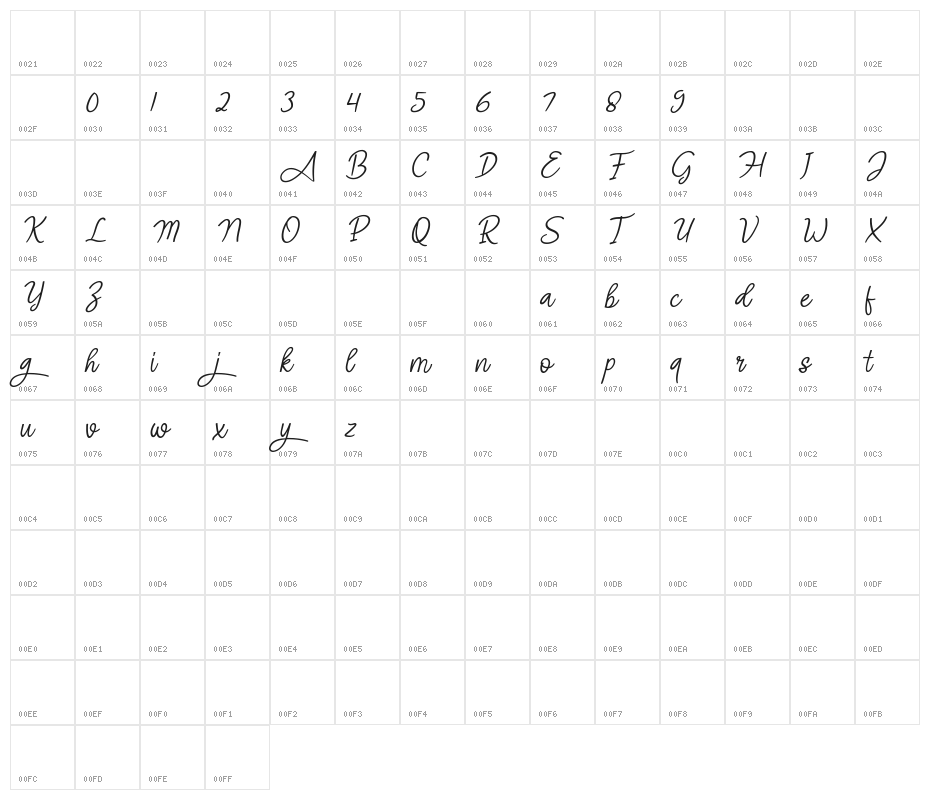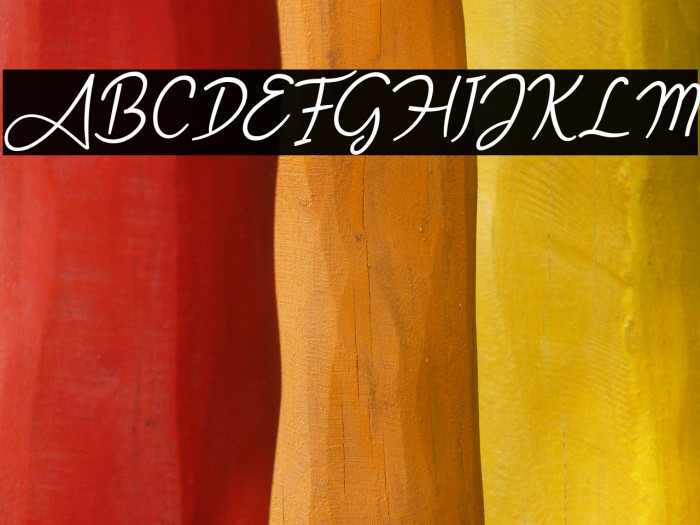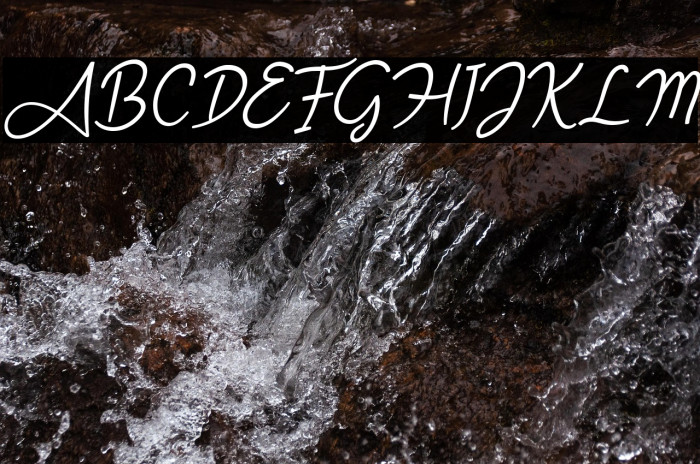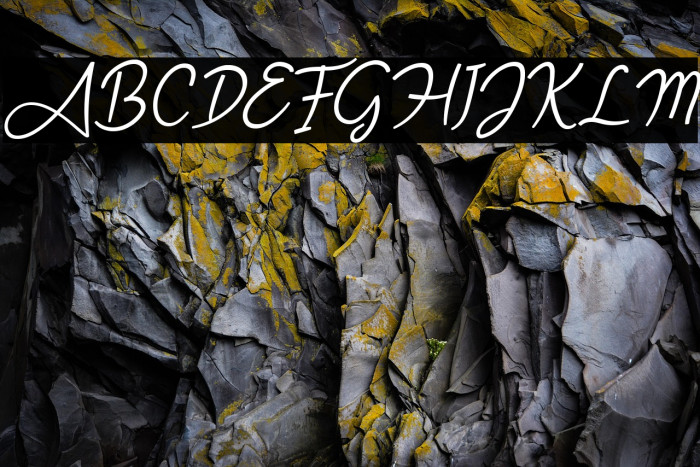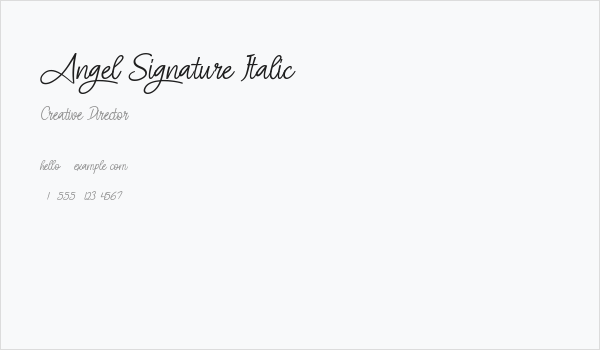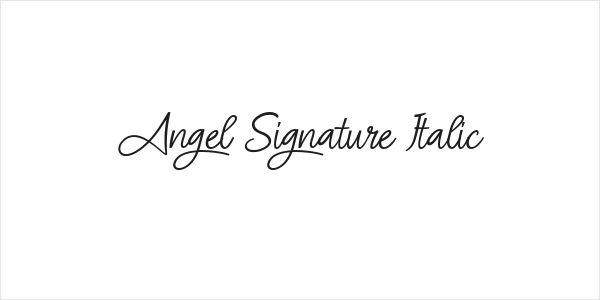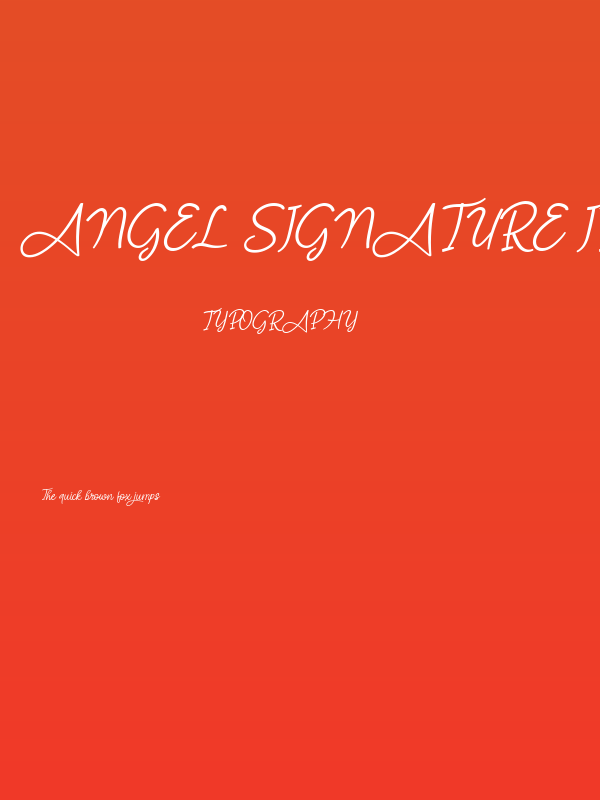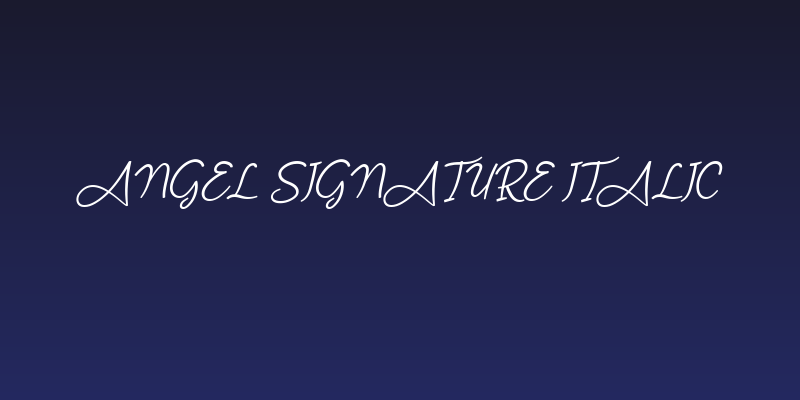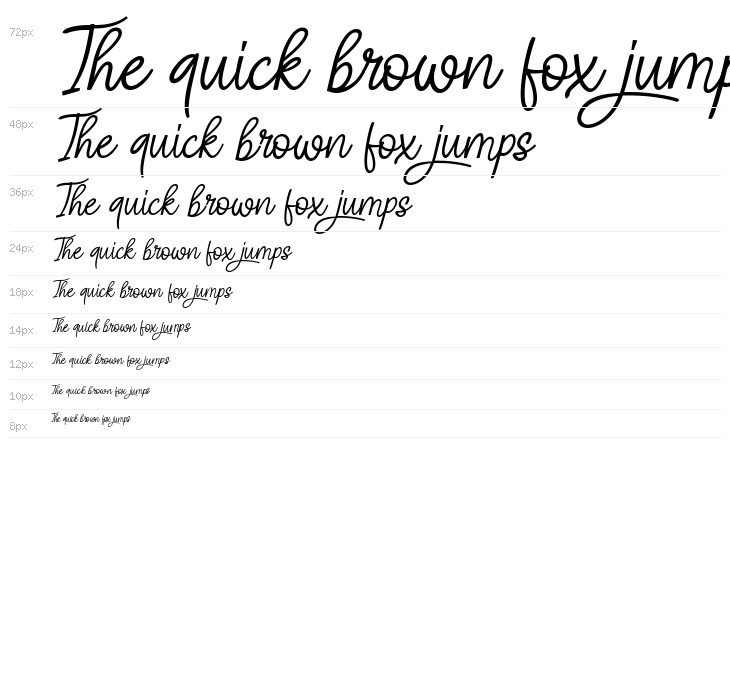
Angel Signature Italic Font
Angel Signature Italic Description
This elegant script font exudes a sense of sophistication and fluidity, characterized by its graceful, flowing lines and cursive style. The uppercase letters are slightly more ornate, with sweeping curves and loops that add a touch of flair. The lowercase letters maintain a consistent rhythm, with smooth connections between characters, enhancing readability while preserving an artistic touch. The numerals are distinct yet harmonize well with the overall script style, making them suitable for a variety of applications. This font's delicate strokes and balanced proportions make it ideal for projects that require a personal, handwritten feel.
| Overall Style | Elegant and sophisticated |
| Proposed Projects | Ideal for wedding invitations, personal branding, greeting cards, and elegant packaging. |